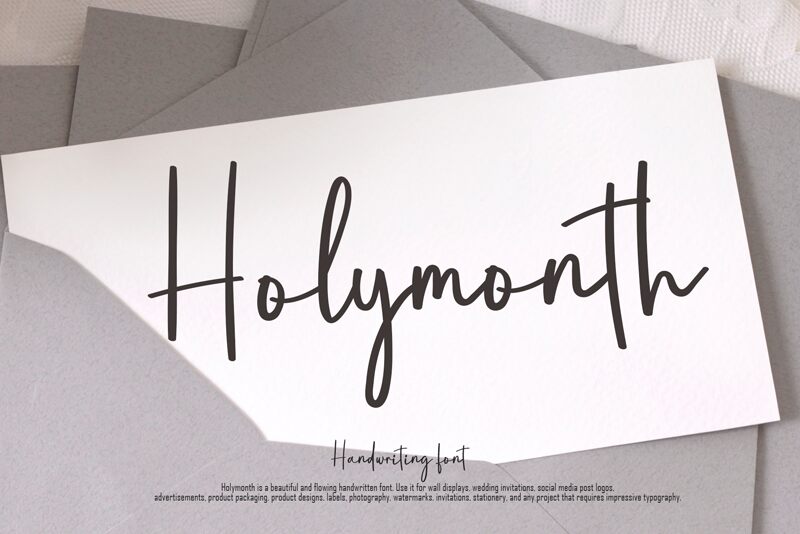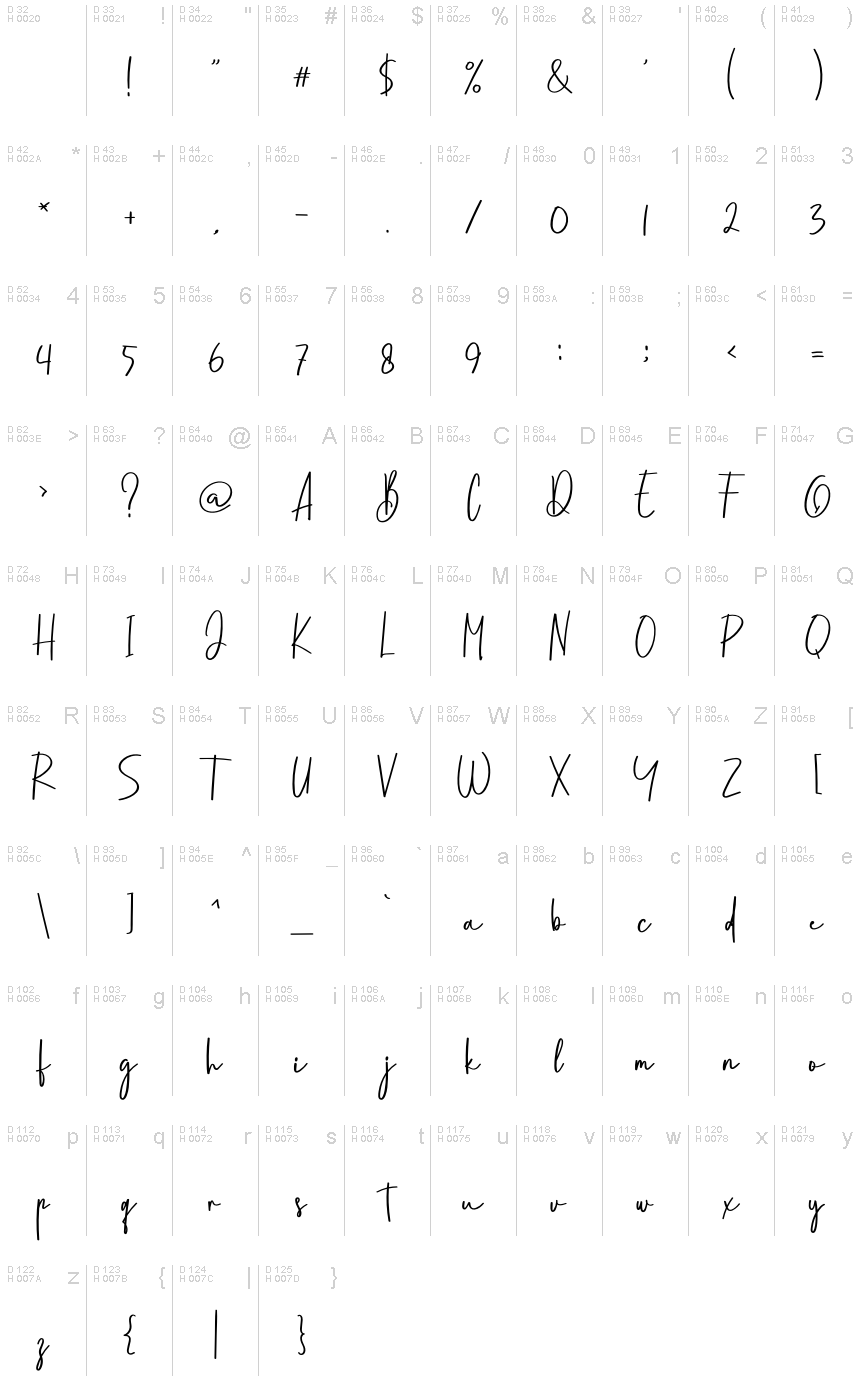
Holymonth
Holymonth, crafted by Creatype Designer, captivates with its classy calligraphic influence and contemporary allure. This light, condensed font seamlessly blends tradition and modernity, evoking a sense of refined elegance. Its flowing, expressive strokes dance across the page, inviting a visual exploration of its unique character.
Holymonth's versatility makes it a compelling choice for a wide range of creative projects. From elegant stationery and captivating titles to impactful letterheads, this font's distinct personality will elevate any design. Its adaptability ensures a smooth integration into various design contexts, allowing creative professionals to infuse their work with a touch of timeless sophistication.